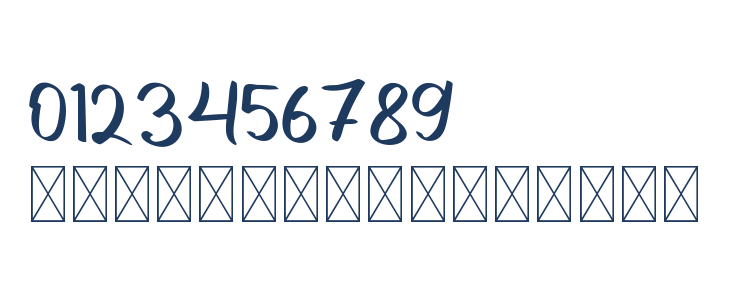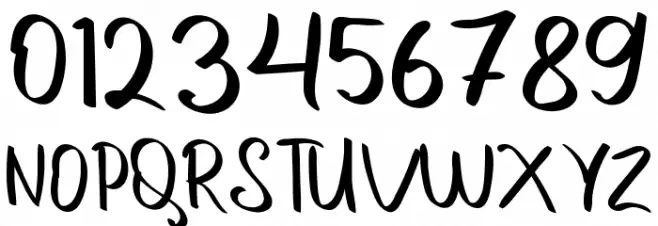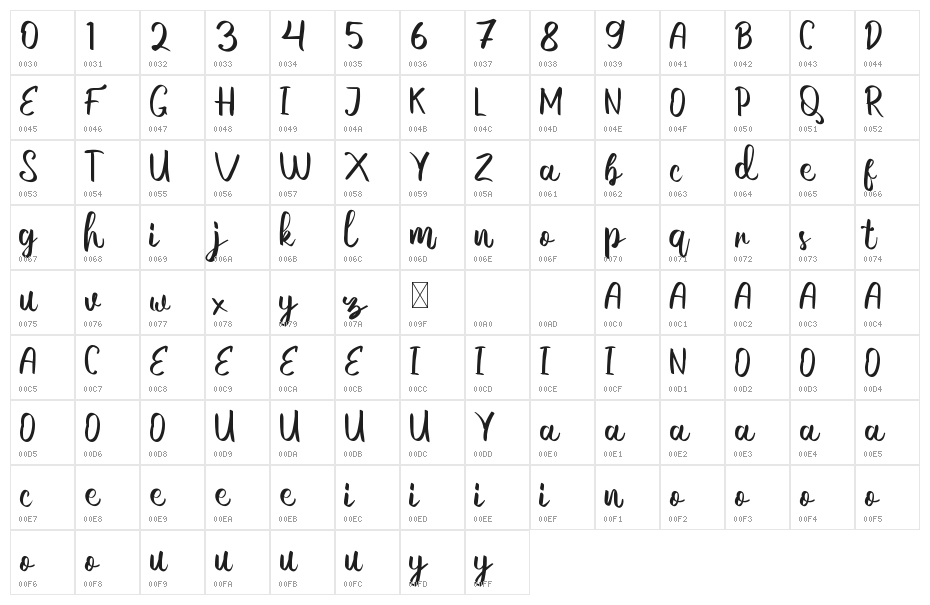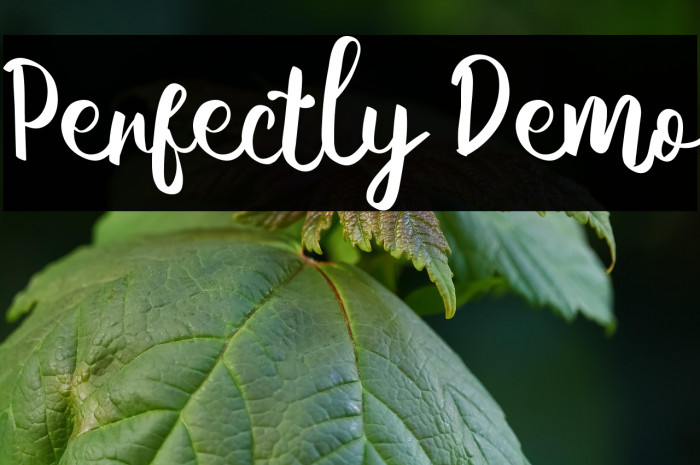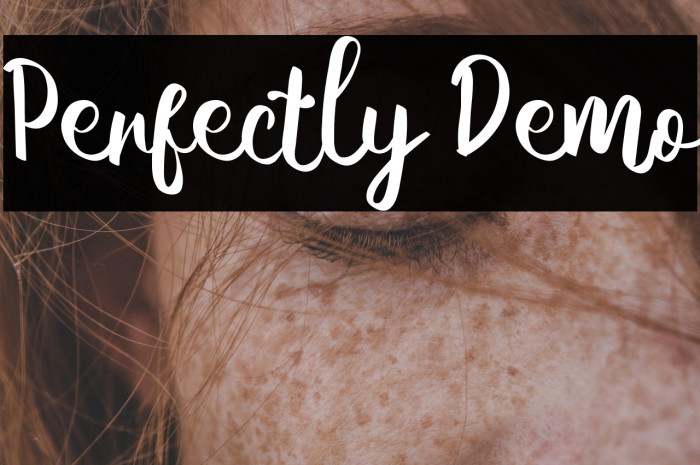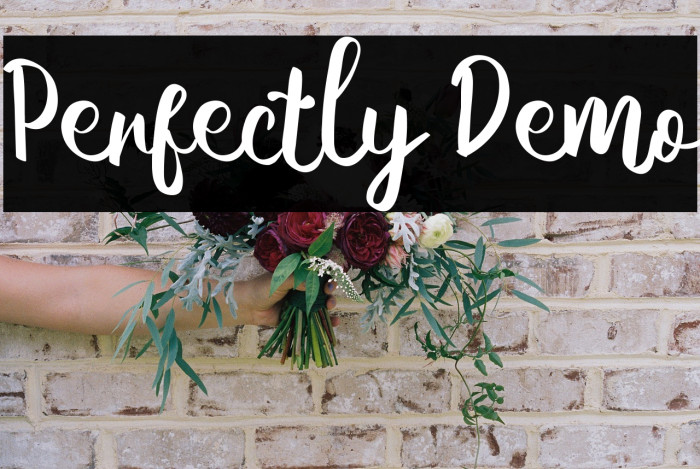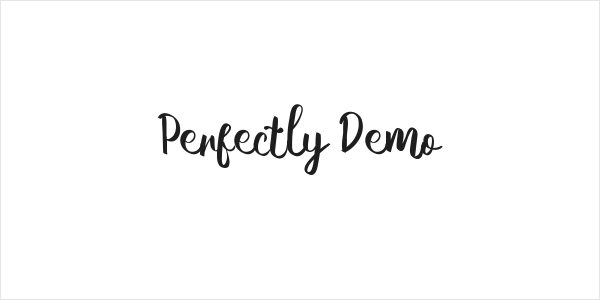
Perfectly Demo Font
Perfectly Demo Description
This font exudes a playful and energetic vibe with its handwritten style. The letters are crafted with a fluid motion, giving them a lively and dynamic appearance. The uppercase characters are bold and slightly irregular, adding to the casual and informal feel. The lowercase letters maintain a consistent flow, with some characters featuring loops and curls that enhance the handwritten aesthetic. The numbers are equally expressive, matching the overall style of the alphabet. The special characters blend seamlessly with the rest of the set, ensuring a cohesive look. This font is perfect for projects that require a personal touch or a creative flair.
Use CaseLogos, Headlines, Creative projects
Proposed ProjectsIdeal for greeting cards, invitations, personal branding, and creative projects that require a personal touch.